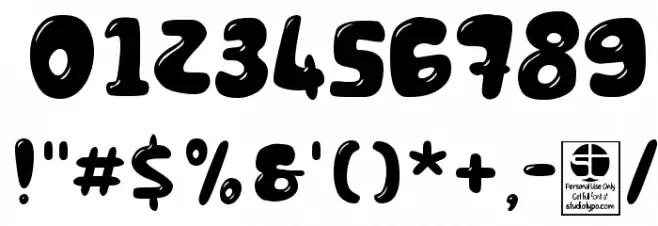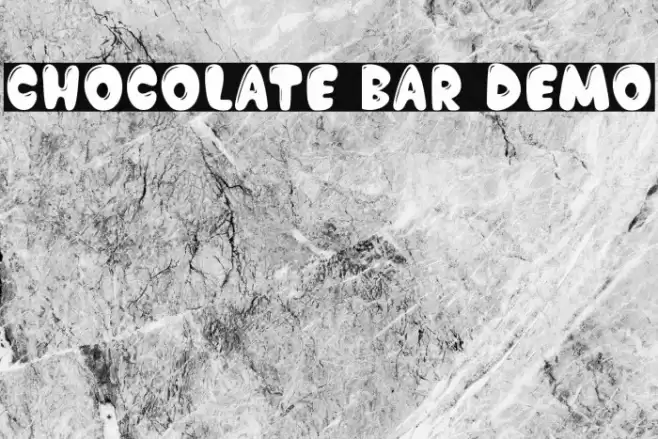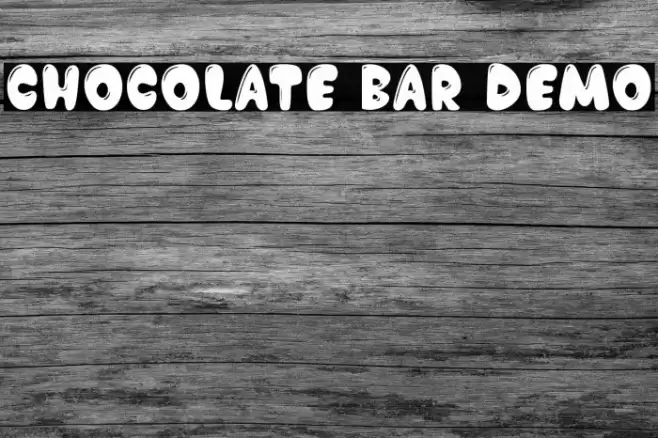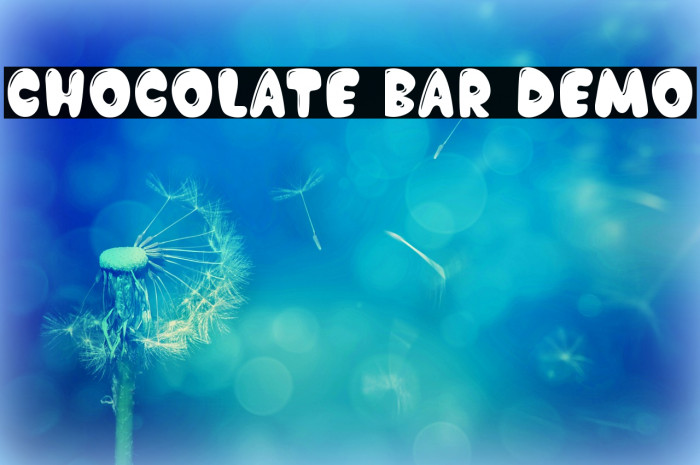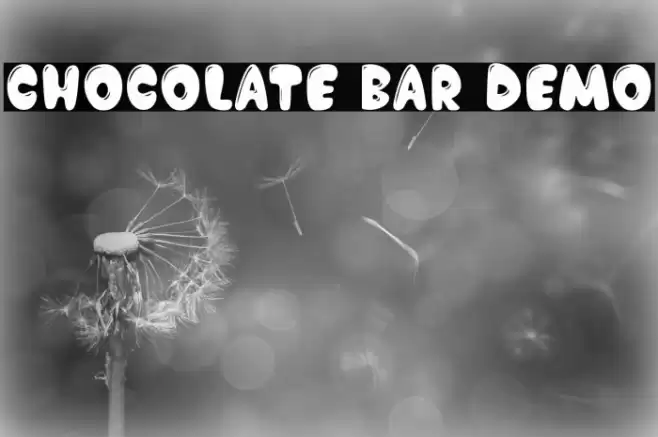
Chocolate Bar Demo Font
Chocolate Bar Demo Description
This playful and bold typeface features rounded, bubbly characters that evoke a sense of fun and whimsy. The letters are thick and substantial, with a smooth, flowing style that resembles melted chocolate or soft candy. The font maintains a consistent weight throughout, providing a cohesive and uniform appearance. Its unique design makes it stand out, with each character having a slightly irregular shape that adds to its charm. The numbers and special characters follow the same playful aesthetic, ensuring versatility across different uses. This font is perfect for projects that require a lighthearted and engaging touch.
| Overall Style | Playful, Whimsical |
| Proposed Projects | Ideal for children's books, candy packaging, playful branding, and party invitations. |